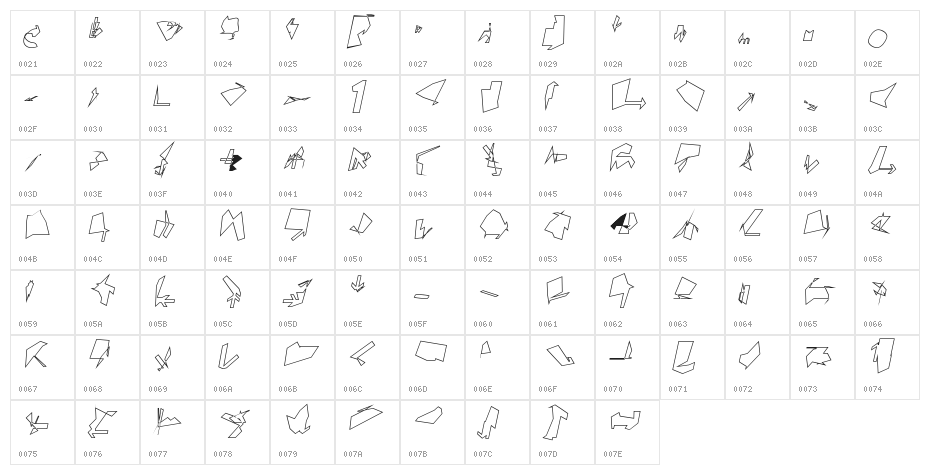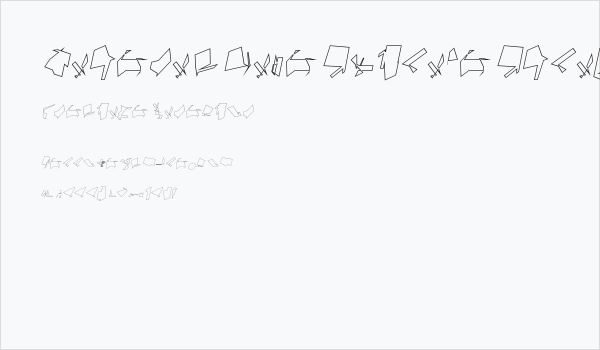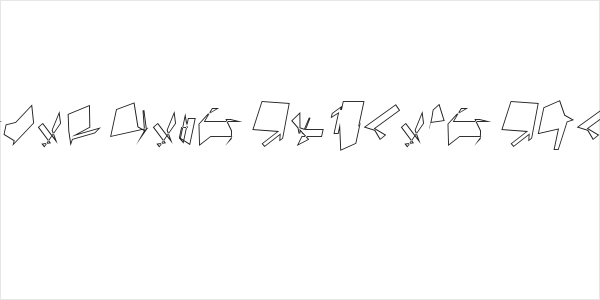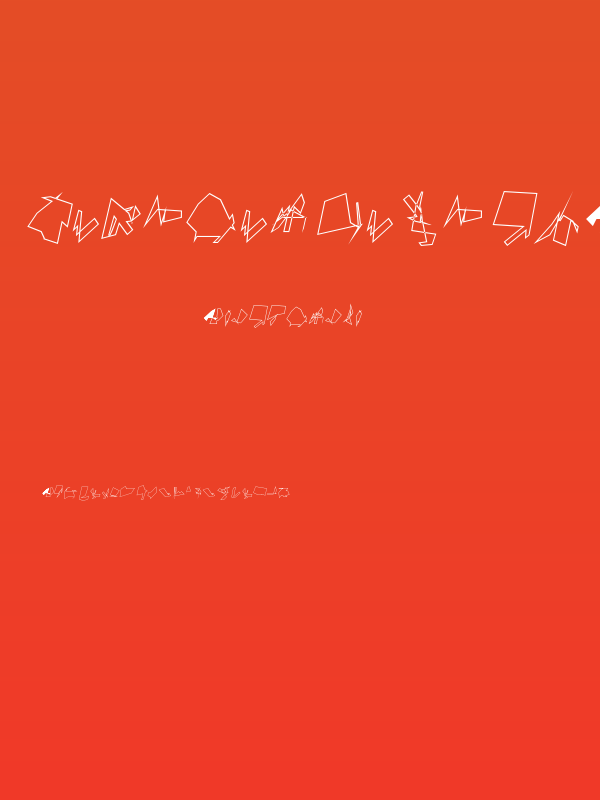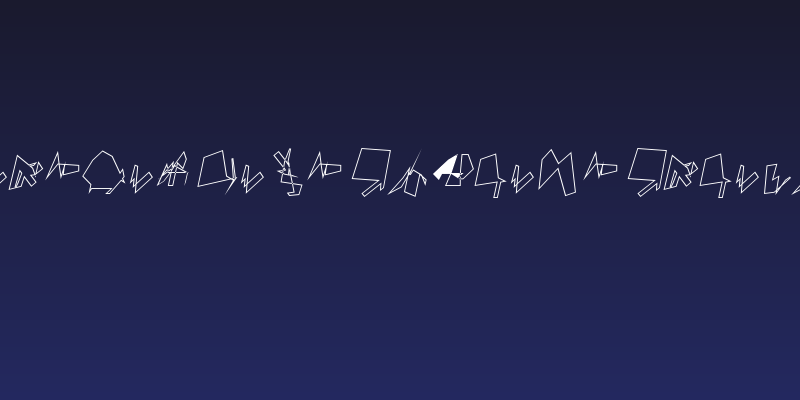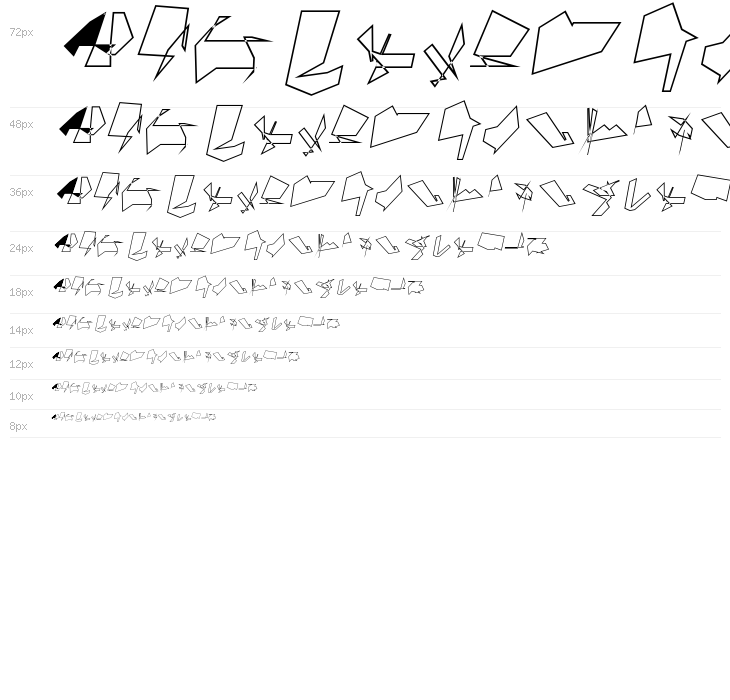
Siberia Wide Outline Oblique Font
Siberia Wide Outline Oblique Description
This font exhibits a highly abstract and geometric design, characterized by sharp angles and irregular shapes. Each character is outlined, giving it a distinct, bold appearance. The oblique style adds a dynamic, forward-leaning effect, enhancing its modern and edgy aesthetic. The wide spacing between characters contributes to its readability despite the unconventional forms. This font is a striking choice for projects that aim to capture attention and convey a sense of innovation and creativity.
Proposed ProjectsIdeal for avant-garde posters, modern art exhibitions, edgy branding, and futuristic designs.